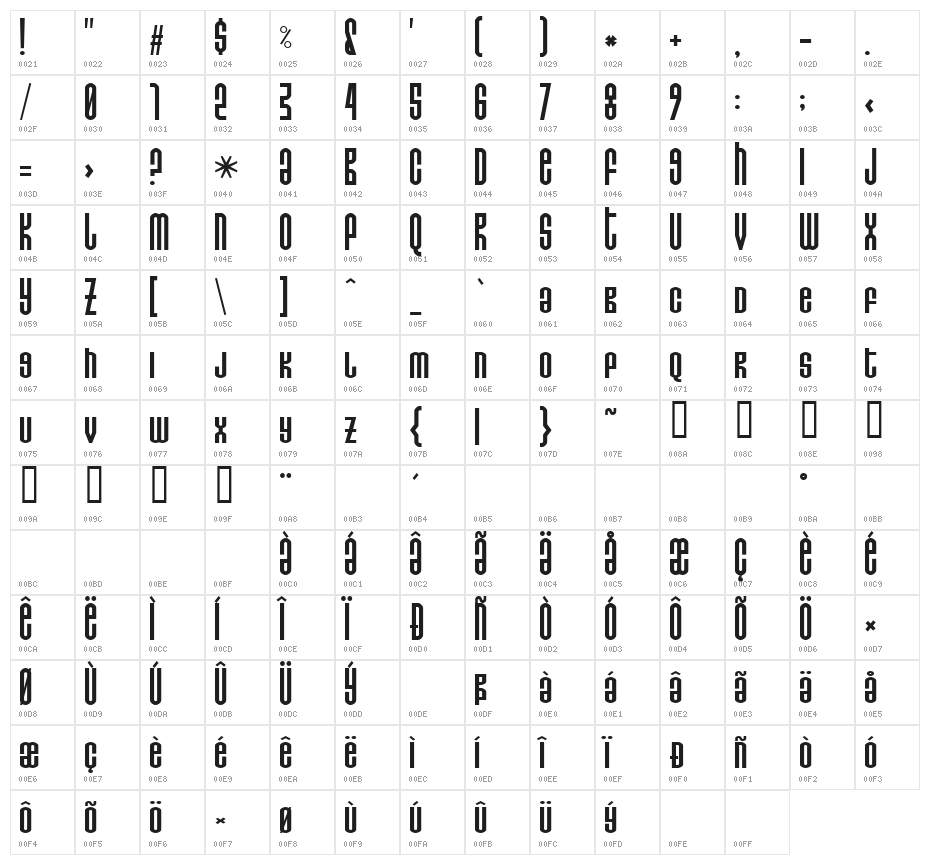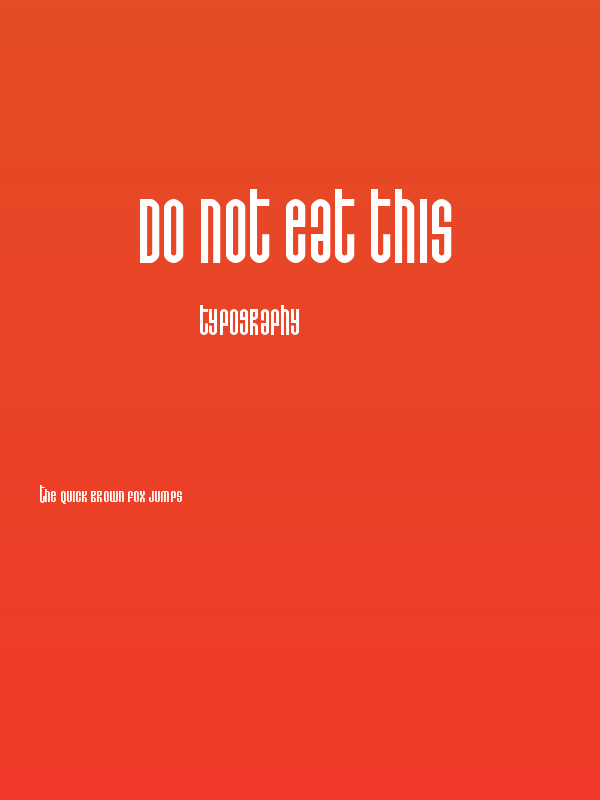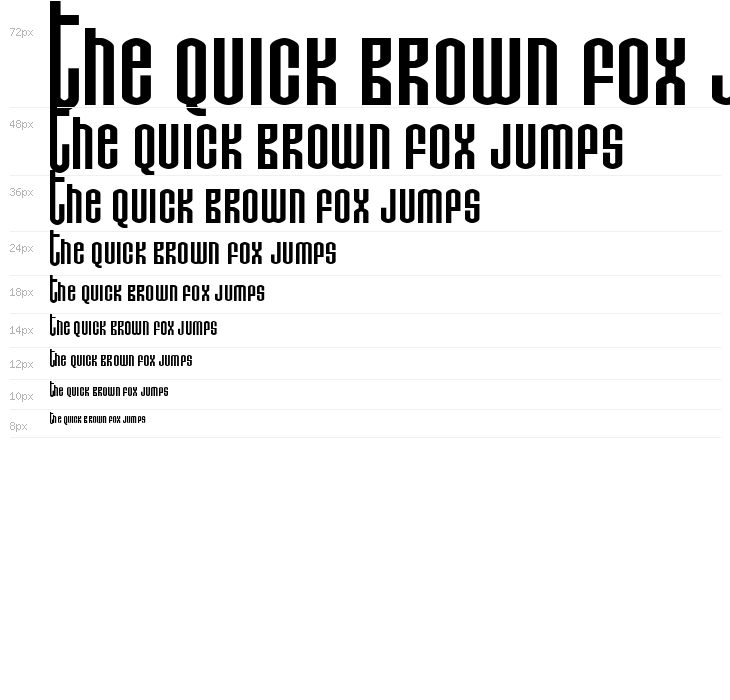
Do not eat this Font
Do not eat this Description
This font features a bold and condensed style with a strong vertical emphasis, creating a striking and impactful appearance. The characters are tall and narrow, with minimal spacing between them, which enhances the compact and dense look. The uppercase letters are particularly elongated, giving the font a unique and modern aesthetic. The lowercase letters maintain the same condensed structure, ensuring consistency throughout the typeface. The numerals and special characters follow the same design principles, contributing to the overall cohesive appearance. This font's boldness and distinctiveness make it suitable for attention-grabbing designs.
| Proposed Projects | Ideal for posters, headlines, branding, and any design requiring a bold statement. |